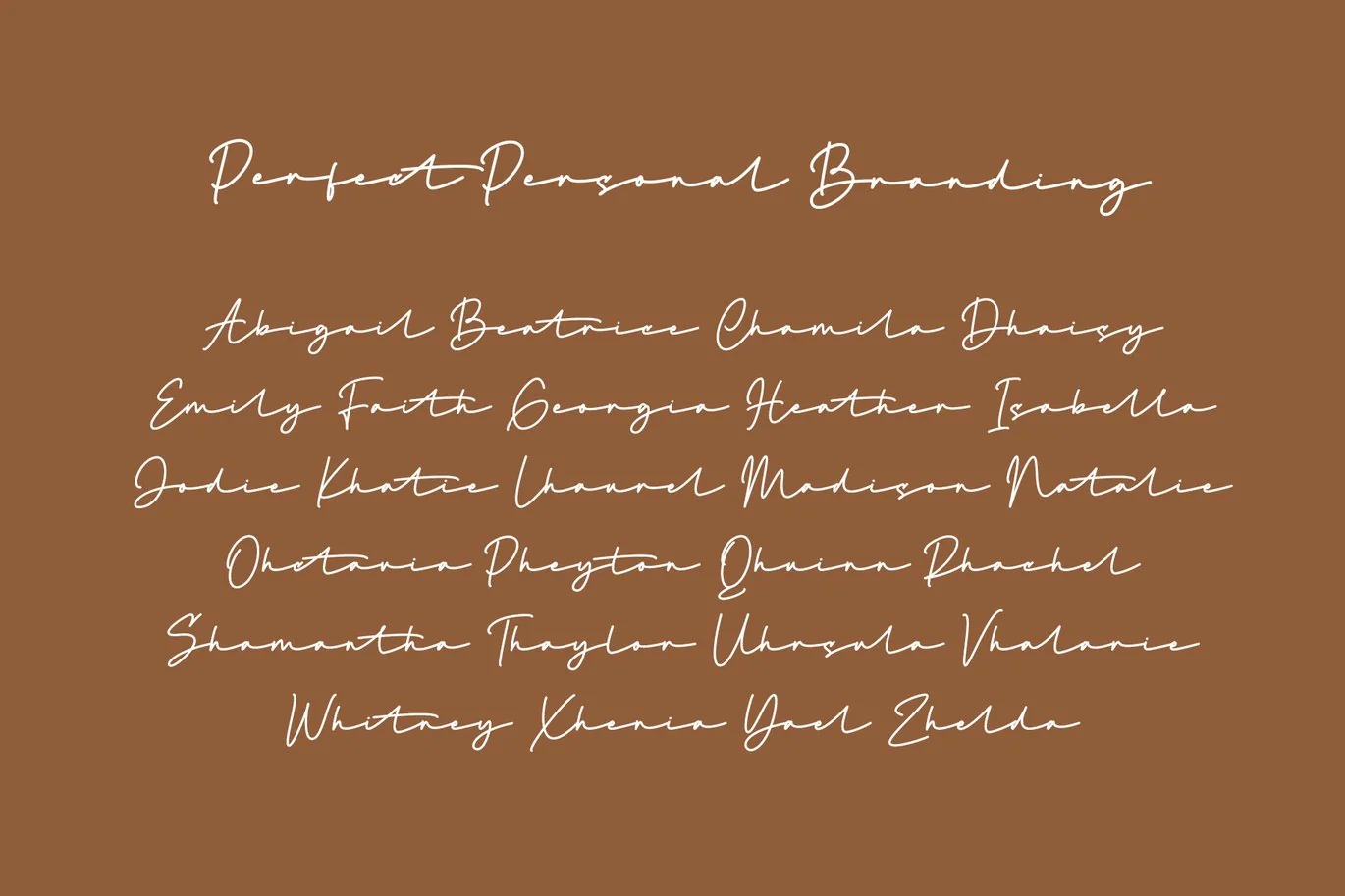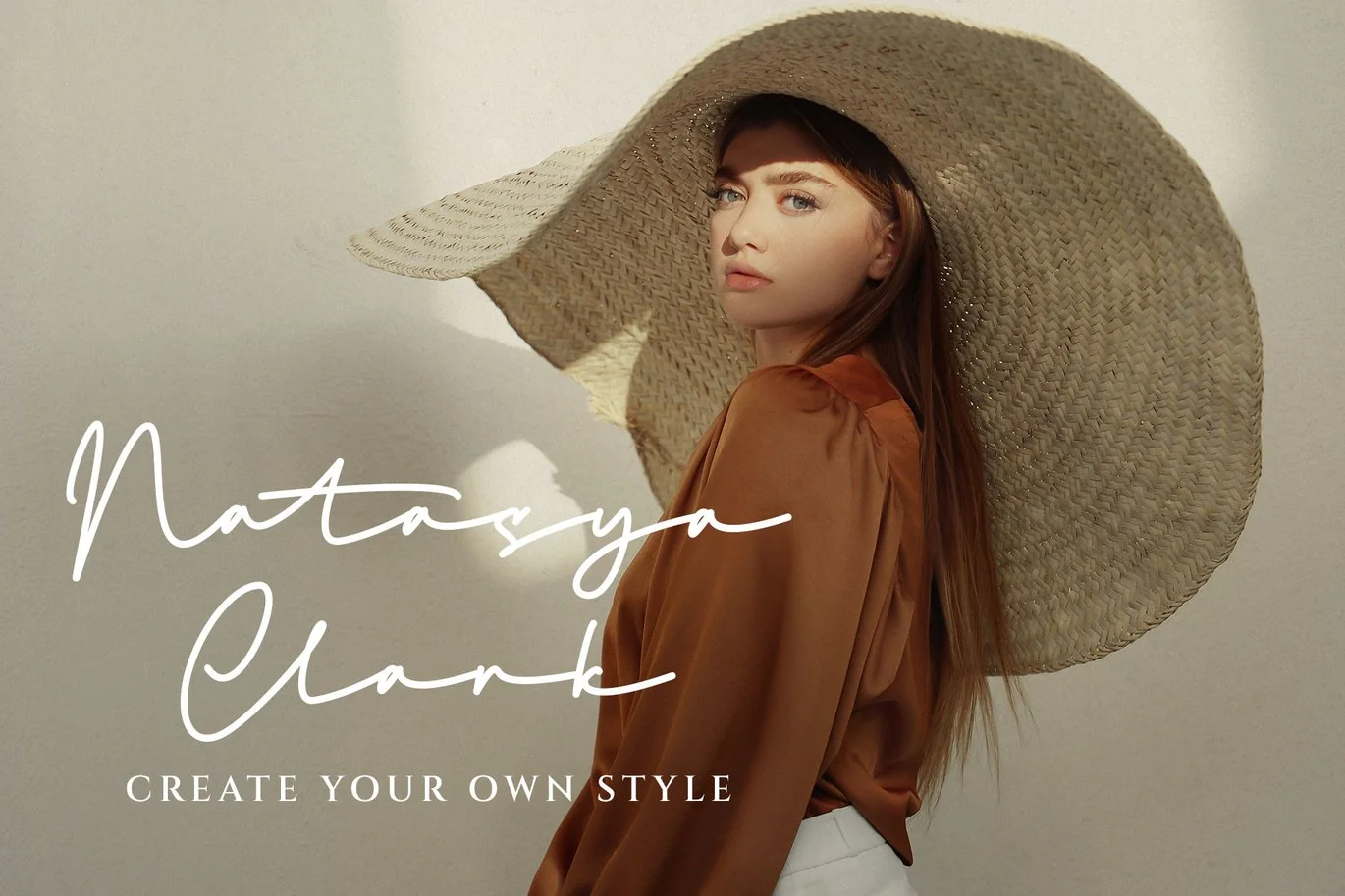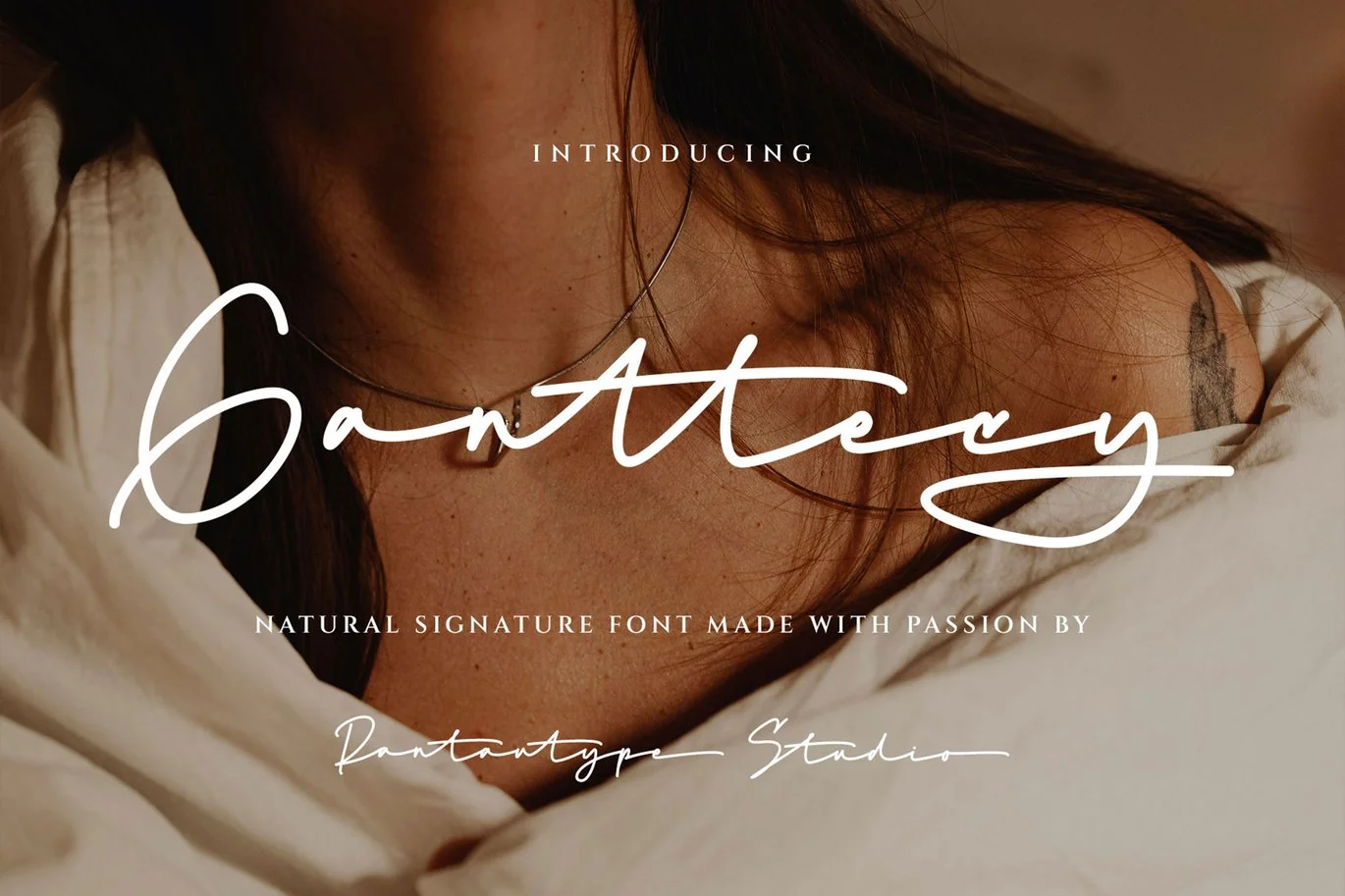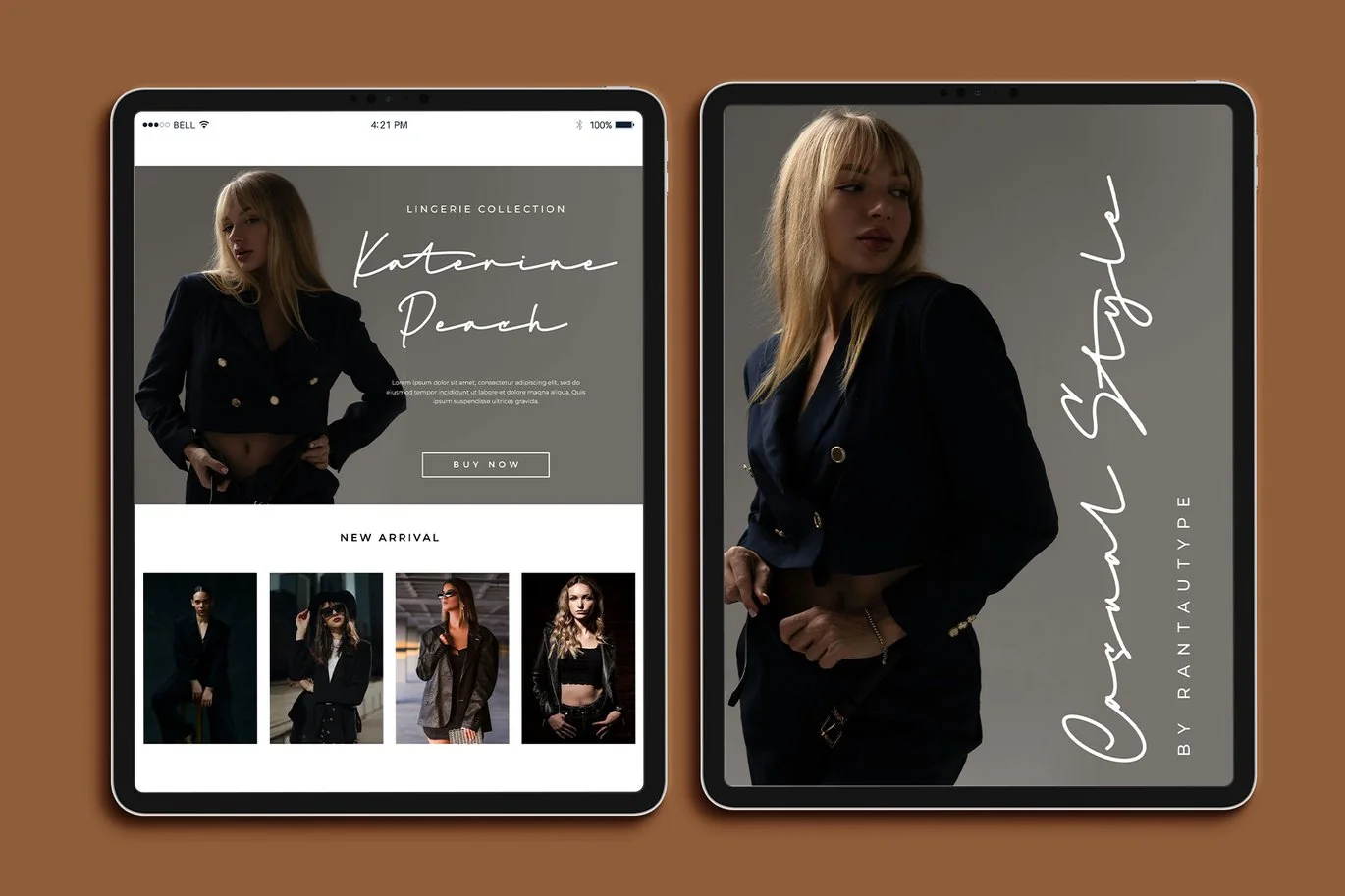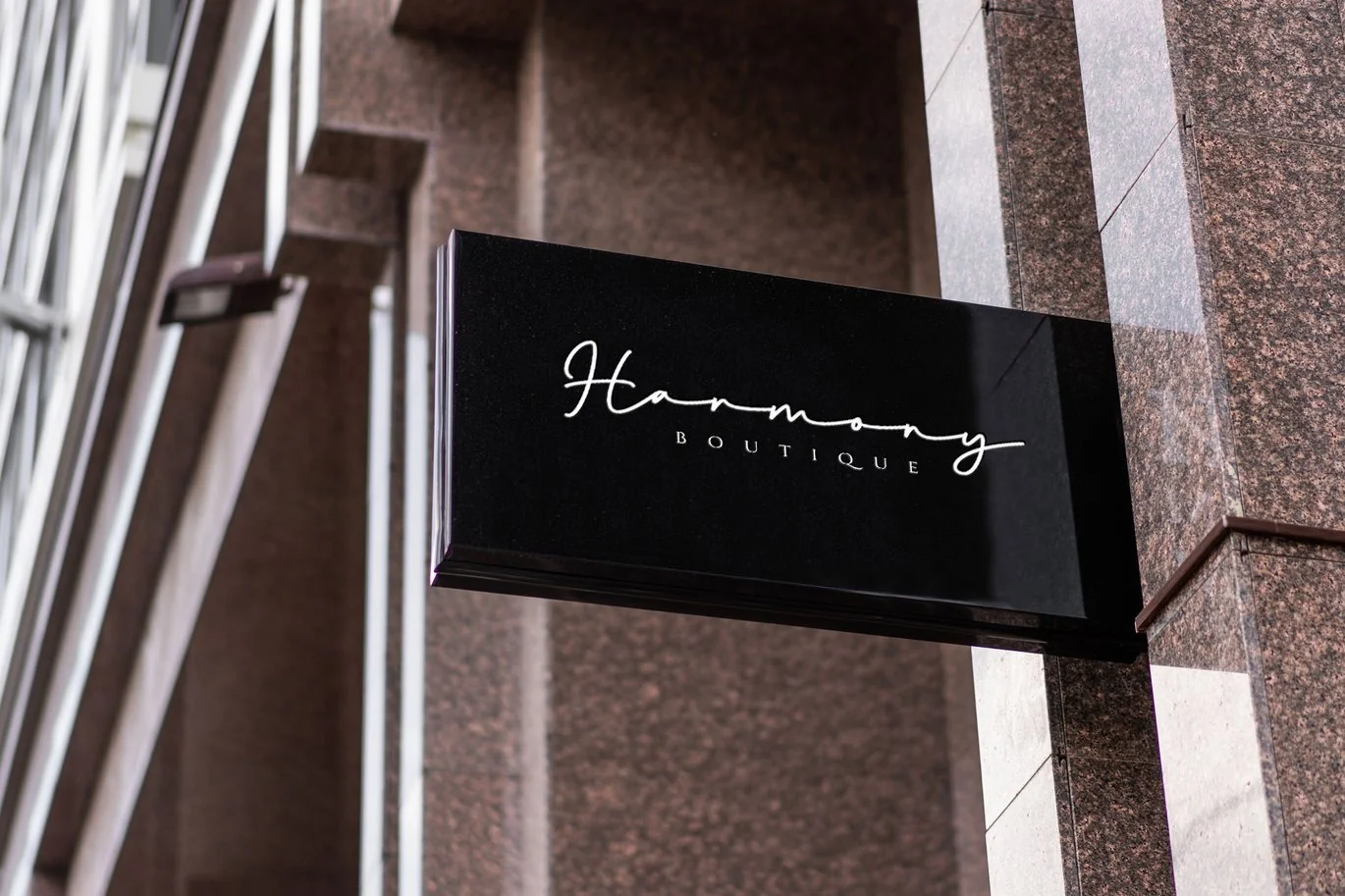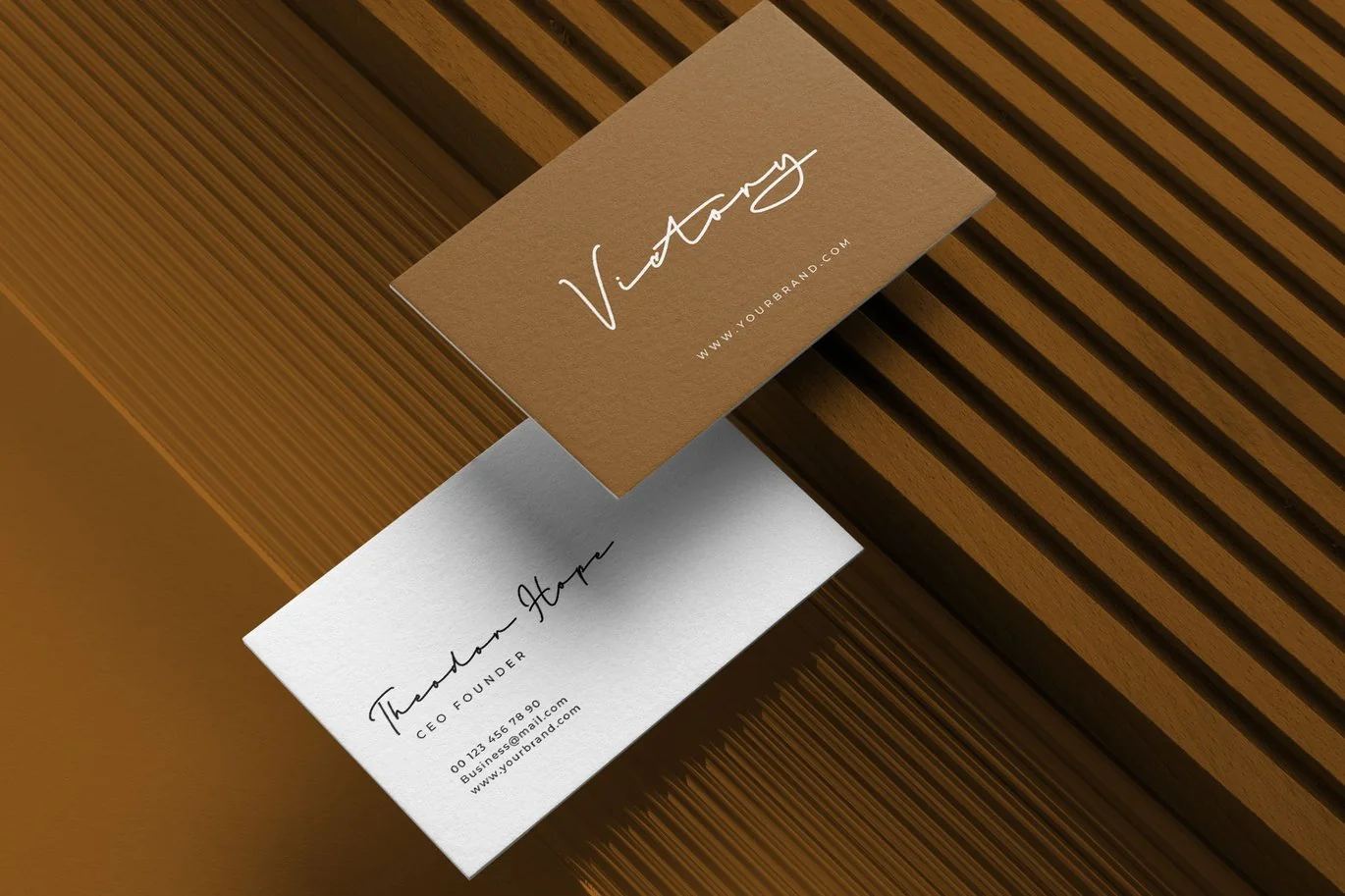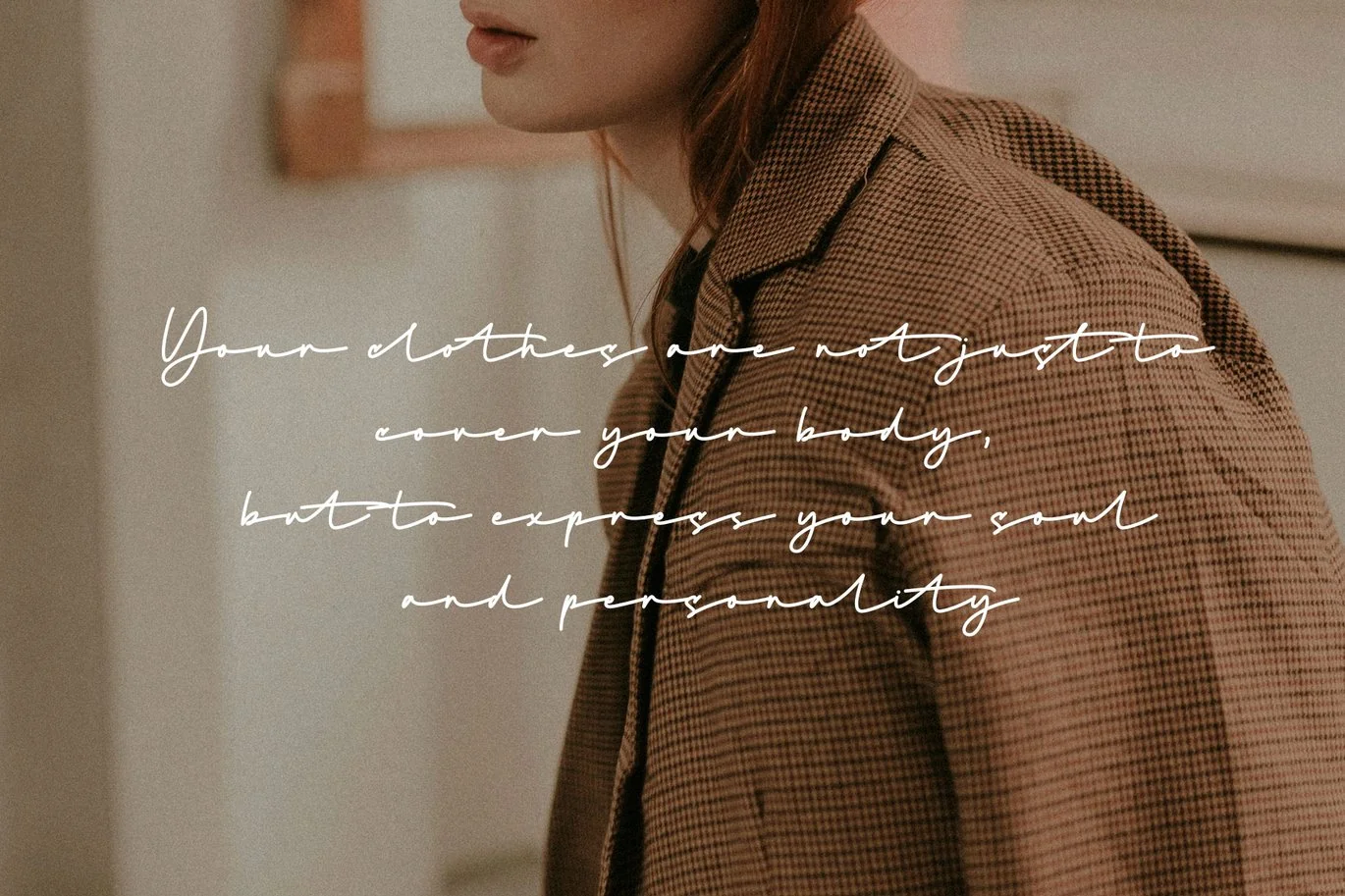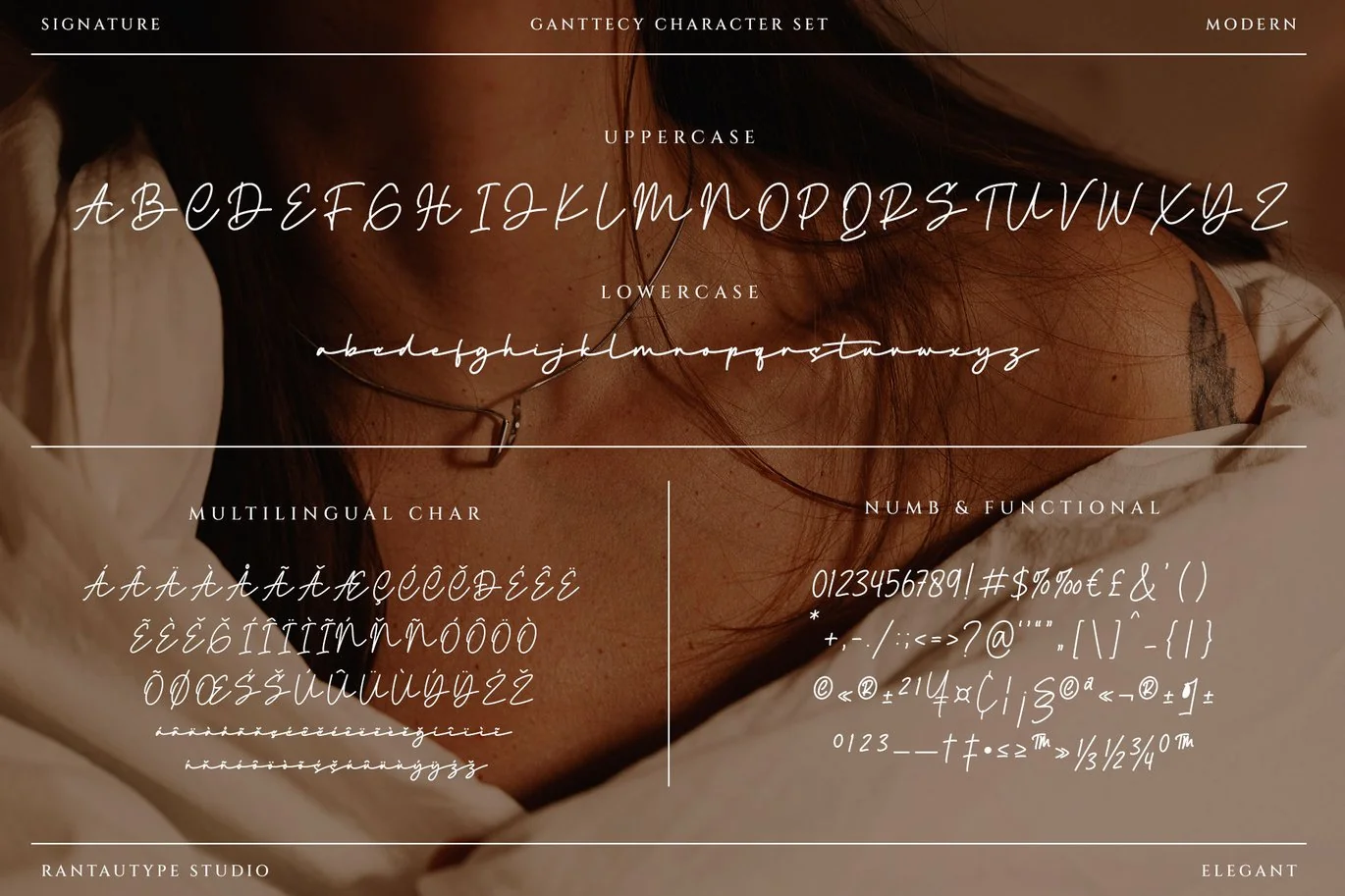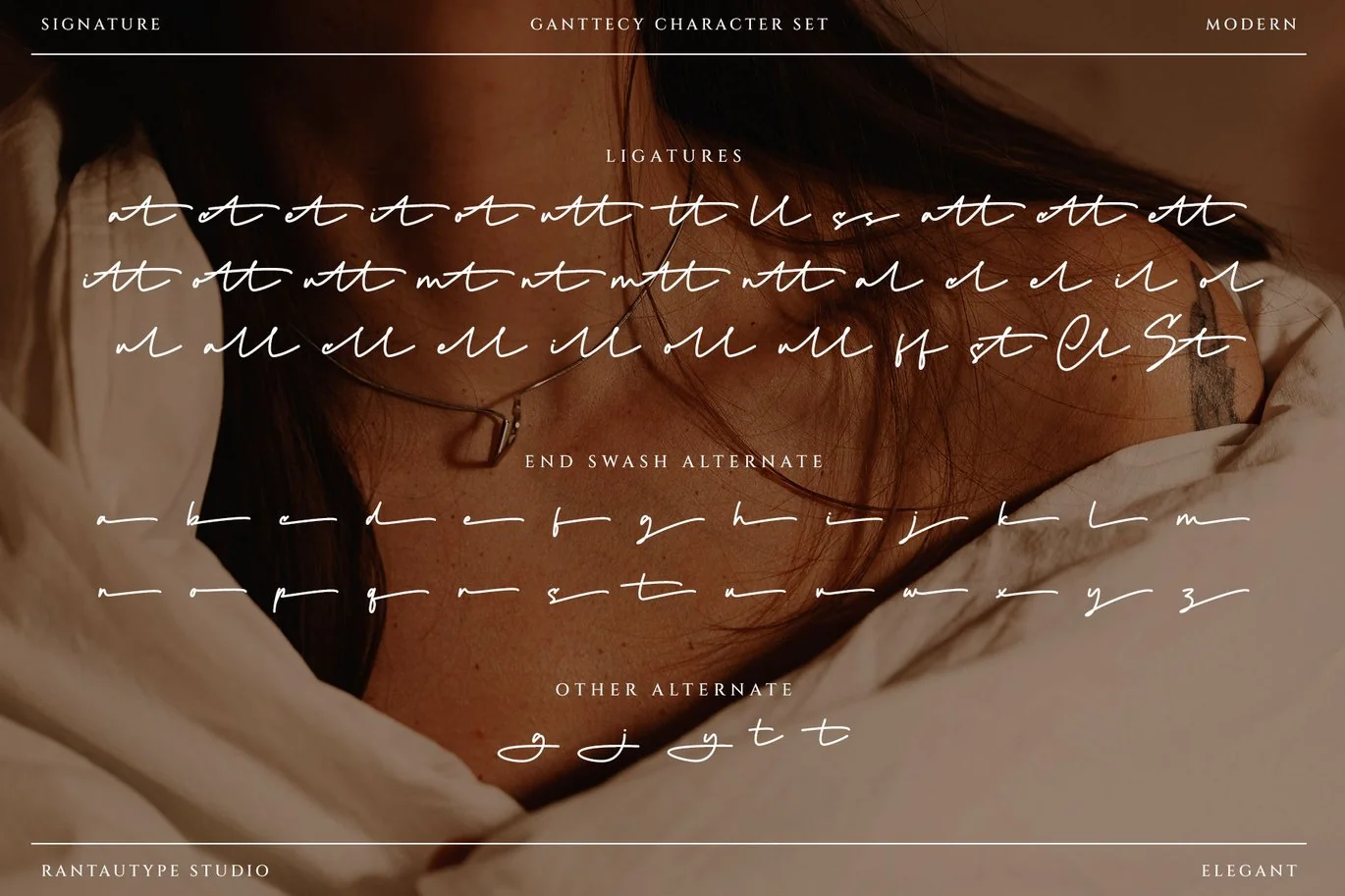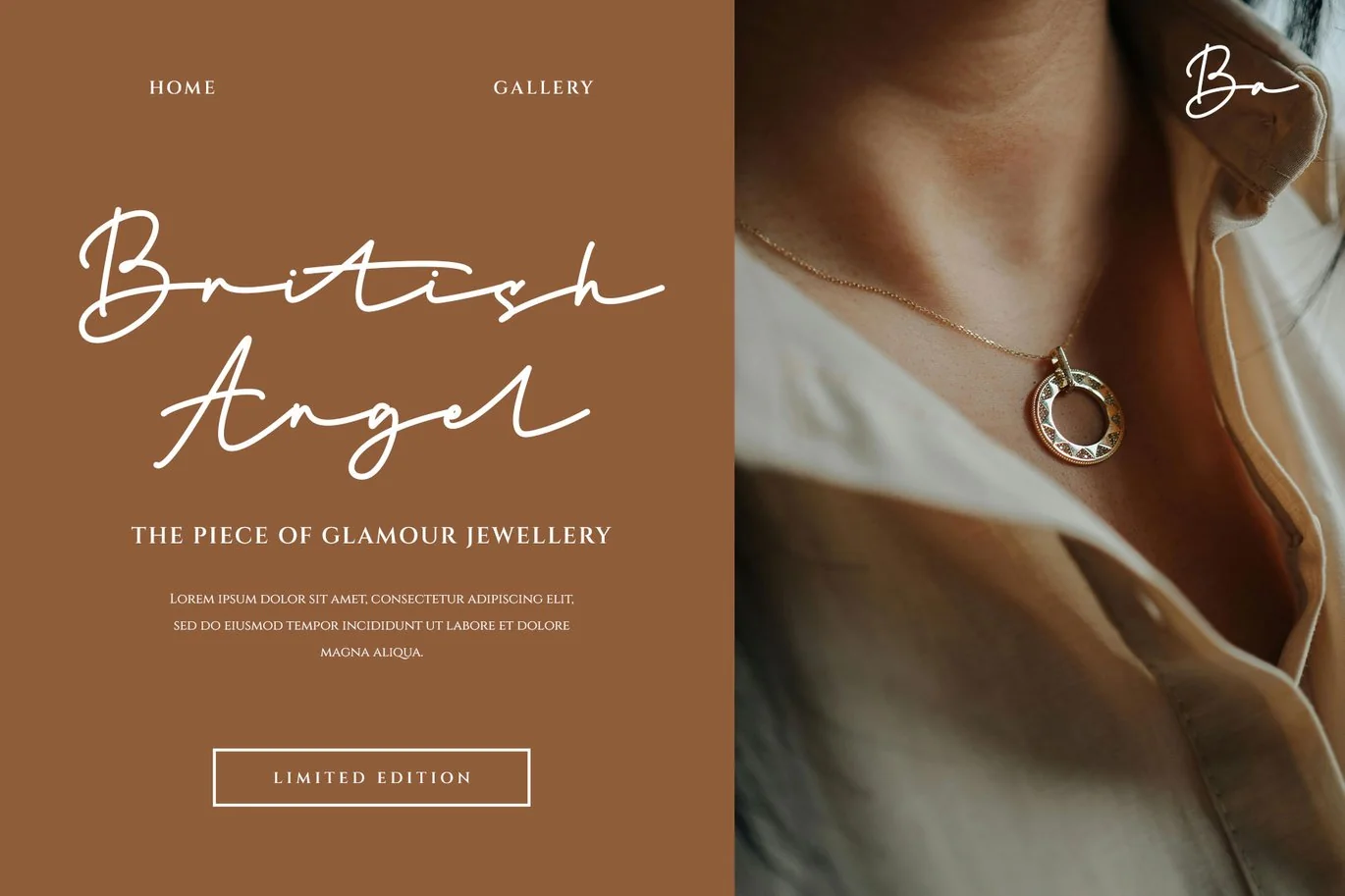
Ganttecy Signature Font
Ganttecy is signature font with stylish character and embrace of grace. Ganttecy bring elegant harmony of typography. Ganttecy is a perfect choice for any creative endeavor, creating elegant, modern, chic, lifestyle design such as logotype, title, cover, branding, invitations, wedding designs, display and magazine, social media posts, advertisements, printed quotes, product packaging, corporate brand, product designs, labels, photography, watermarks, special events and any other project with handwritten touch.
Fonts include Multilingual Character for: Afrikaans, Albanian, Asu, Basque, Bemba, Bena, Breton, Chiga, Cornish, Dutch, English, Estonian, Filipino, Finnish, Friulian, Galician, Gusii, Indonesian, Irish, Italian, Kabuverdianu, Kalenjin, Kinyarwanda, Luo, Luxembourgish, Luyia, Machame, Makhuwa-Meetto, Makonde, Malagasy, Manx, Morisyen, North, Ndebele, Nyankole, Oromo, Portuguese, Quechua, Romansh, Rombo, Rundi, Rwa, Samburu, Sango, Sangu, Scottish, Gaelic, Sena, Shambala, Shona, Soga, Somali, Spanish, Swahili, Swedish, Swiss, German.